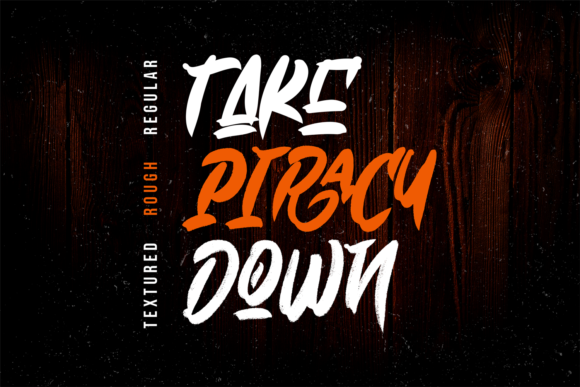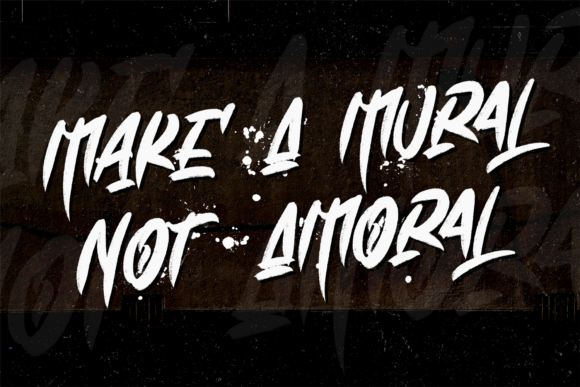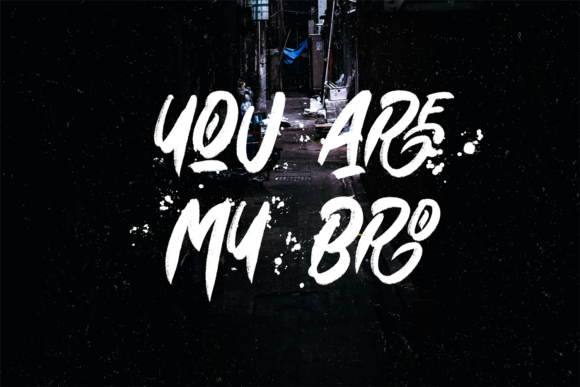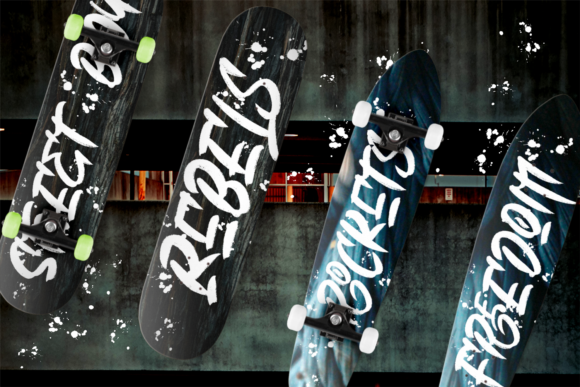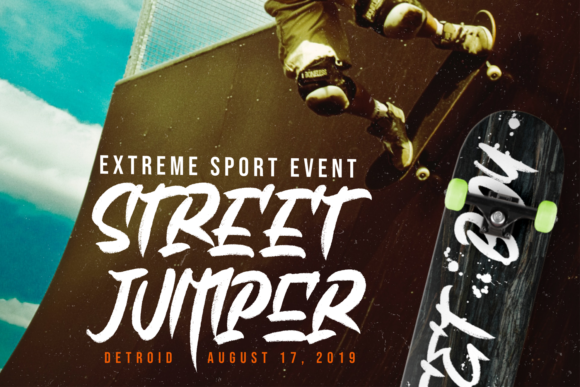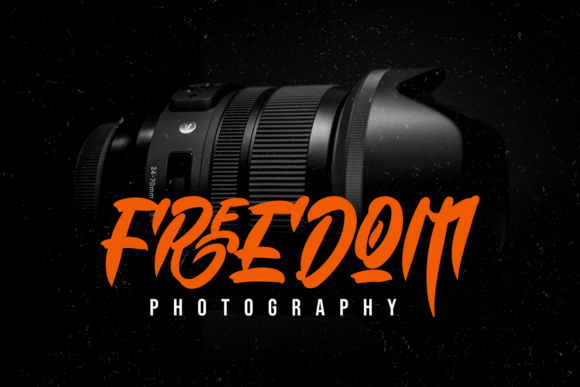
Unlock Creative Potential with Black & Blue Font: A Versatile Brush Font for Diverse Projects
In the realm of typography, the right font can elevate a design from ordinary to extraordinary. For designers and crafters seeking a unique and versatile typeface, the Black & Blue Font stands out as an exceptional choice. This brush font, available in three distinct styles—regular, rough, and textured—offers a wide range of creative possibilities. In this article, we’ll explore the features and benefits of the Black & Blue Font, and how it can be effectively utilized in various projects.
Exploring the Black & Blue Font
The Black & Blue Font is characterized by its brush script style, which lends a personal and artistic touch to any design. The font comes in three styles:
- Regular: The regular style offers a smooth, fluid look that is perfect for designs requiring a clean yet expressive typographic feel.
- Rough: For projects that benefit from a more rugged, textured appearance, the rough style adds a layer of depth and character.
- Textured: The textured style provides a highly detailed, almost three-dimensional effect, ideal for designs aiming to convey a sense of authenticity and craftsmanship.
This variety allows designers to choose the most suitable style based on the project’s requirements, ensuring that the typography complements and enhances the overall design.
Versatility Across Projects
The Black & Blue Font’s versatility is one of its most compelling features. Its application is not limited to a specific type of project; rather, it can be seamlessly integrated into a wide array of designs, including:
- Branding and Logo Design: Create memorable logos and brand identities with a personal touch.
- Invitations and Stationery: Add a unique flair to wedding invitations, greeting cards, and other stationery.
- Digital Media: Enhance social media graphics, blog headers, and digital advertisements with a distinctive typographic style.
- Crafting and DIY Projects: Perfect for crafters, the font can be used in handmade cards, scrapbooking, and other DIY endeavors.
Why Choose Black & Blue Font?
Several factors contribute to the Black & Blue Font’s appeal:
- Unique Aesthetic: The brush script style, available in three distinct variations, provides a unique aesthetic that can set a design apart.
- Ease of Use: Designed with user-friendliness in mind, the font is easy to incorporate into various design projects, regardless of the software being used.
- High Versatility: The availability of three styles within a single font family makes it highly versatile, suitable for a broad spectrum of design needs.
Tips for Using Black & Blue Font
To maximize the impact of the Black & Blue Font in your designs, consider the following tips:
- Pair with Complementary Fonts: When combining the Black & Blue Font with other typefaces, choose fonts that complement its unique style without overpowering it.
- Experiment with Colors: The font’s versatility extends to color choices. Experiment with different color palettes to find the perfect match for your design.
- Consider the Context: Tailor your choice of style (regular, rough, or textured) to the specific project, ensuring the typography enhances the overall message and aesthetic.
| Font Name | Black & Blue Font |
| Author | Omotu |
The Black & Blue Font is a valuable addition to any designer’s toolkit. Its unique brush script style, offered in three distinct variations, provides endless creative possibilities. Whether you’re working on branding, digital media, or crafting projects, this versatile font can help you achieve a distinctive look that captures attention and communicates your message effectively. By incorporating the Black & Blue Font into your design repertoire, you’ll be well-equipped to tackle a wide range of projects with confidence and creativity.